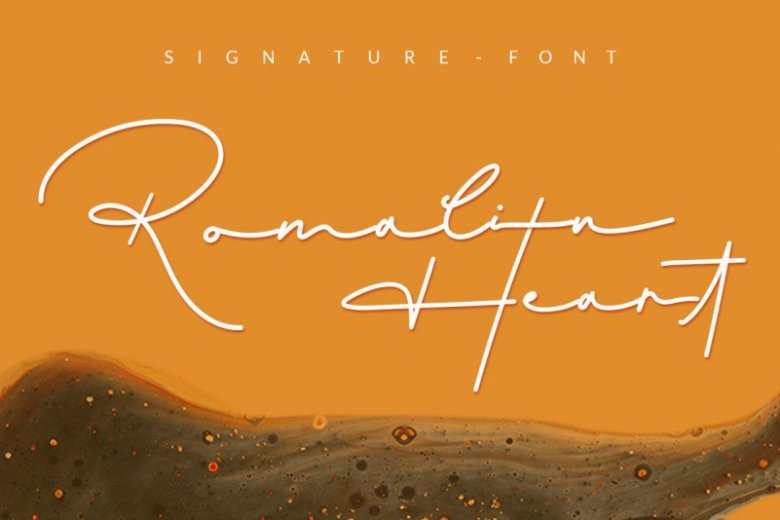
Romalin Heart Signature Font
Thank you for looking Romalin Heart Font. Comes to complement your warm spirit to start all your fun activities. Give your designs an authentic handcrafted feel. It is designed and shared by Halymunt Studio. Romalin Heart Signature inspired by a roman country, minimalist with a modern signature style is easy to use in every project. You can use for any purposes such as branding, signatures, product packaging, titles of books or novels, or just on social media posts.